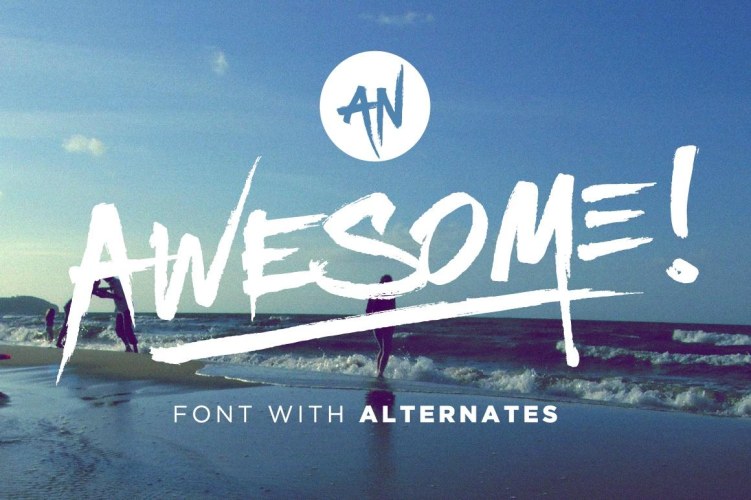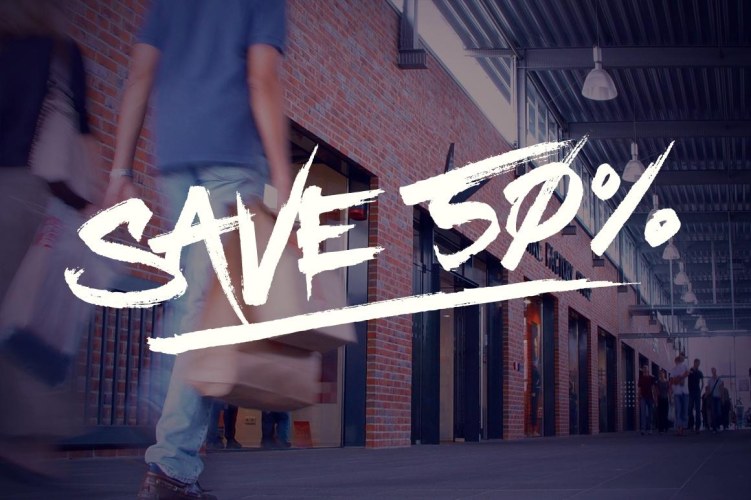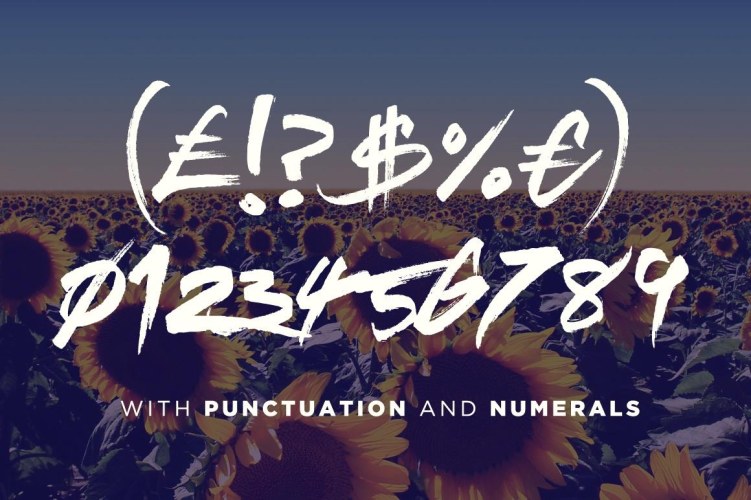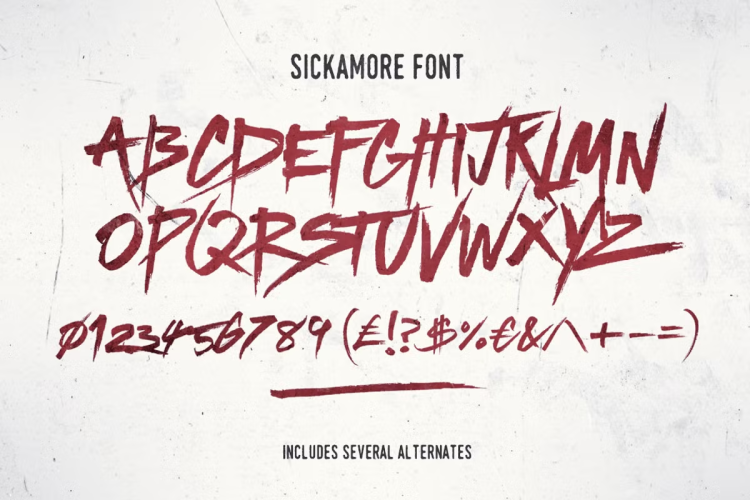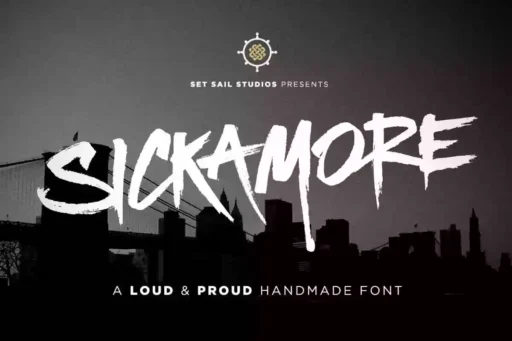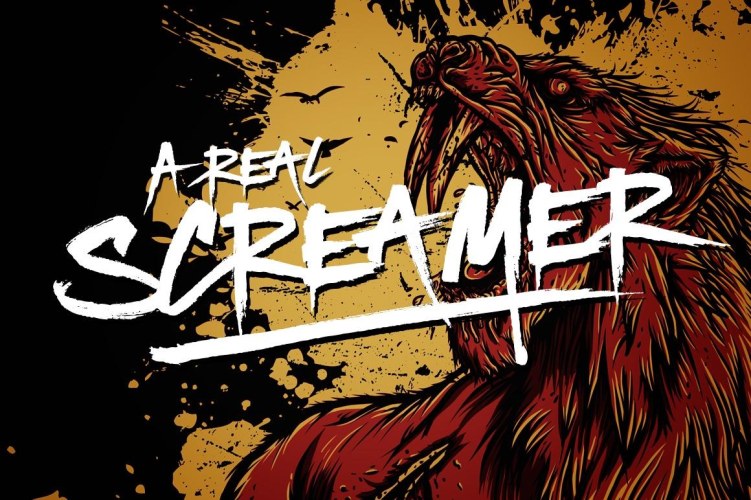
Sickamore Font
Sickamore is an amazingly loud and outstanding display font, argued to be the way to make an impression. It is where you get an absolutely distinct fellow who goes beyond the limits in creating posters, logos, and slogans.
It’s a capital letters font that experimentally tends to work in lowercase, and it has some spices that are a few uppercase fonts available to use everywhere. This adaptability enables you to stack up and intermingle those letterforms to customize your font for the exact appearance of your design.
Aside from its unique letter forms, Sickamore has included numbers, essential punctuation marks, and currency glyphs, providing variety and flexibility not only for text design but almost for every project printed on a sheet, from a poster to a note.
Sickamore will catch you with its typography, emphasize, and make an impression that will stay in people’s minds. The idea of trying new things and artistic creativity that can grab the public’s attention and increase your creativity will bring your designs to different skies.
Where Sickamore Font works best
Sickamore Font is built for size: event posters, hero headlines and billboard-style layouts.
High contrast display type like Sickamore Font reads instantly in thumbnails and motion graphics.
What is Sickamore Font good for?
Sickamore Font is a Display Fonts typeface tagged Amazingly, Branding, Creative, Display. It works well for headlines, logos, posters, social media graphics and branding projects that need a distinctive display fonts look.